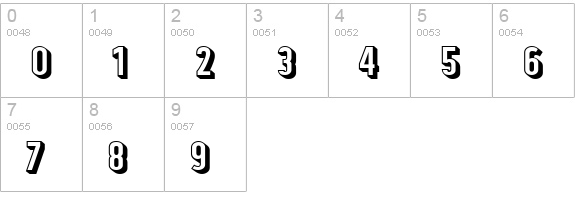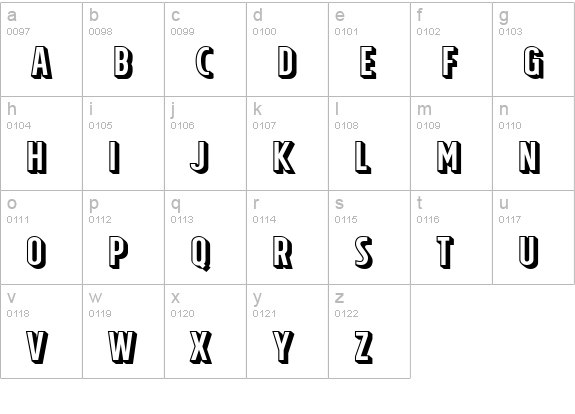
Introducing the stunning Tolyer X 3D font, a cutting-edge typeface that seamlessly blends modern design with a touch of sophistication. This versatile font is perfect for adding a dynamic and eye-catching element to your projects. The Tolyer X 3D font features intricate 3D effects that create a sense of depth and dimension, making your text truly stand out. This font is not only visually striking but also incredibly easy to use, making it ideal for a wide range of design applications. Whether you're working on a poster, logo, website, or any other creative project, the Tolyer X 3D font will elevate your design to the next level. The best part? Tolyer X 3D font is completely free to download at FontsMarket.com. Now you can access this premium font without breaking the bank, allowing you to unleash your creativity without any limitations. Don't miss out on this amazing opportunity to enhance your designs with the Tolyer X 3D font. Download it today and start creating captivating visuals that will leave a lasting impression.